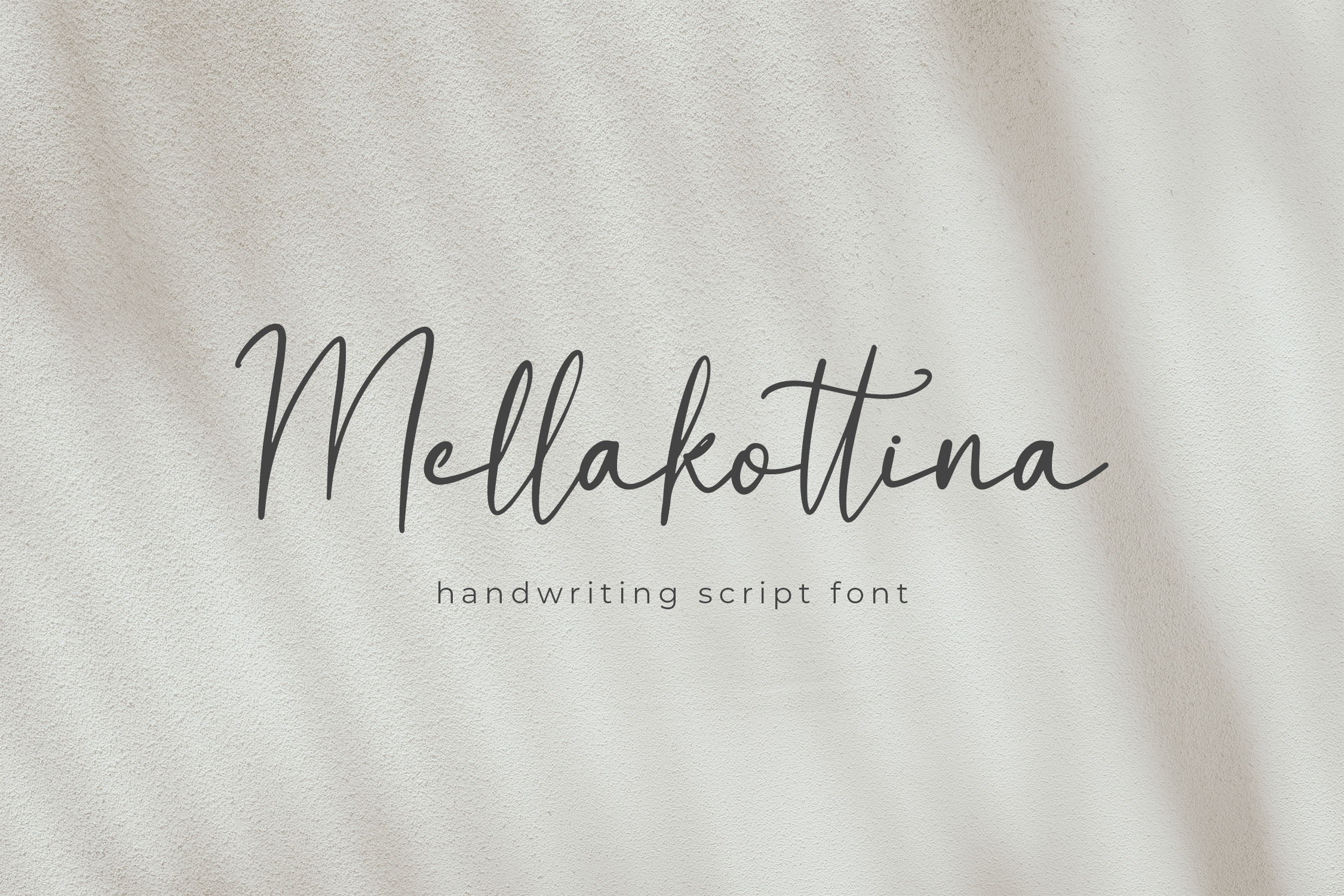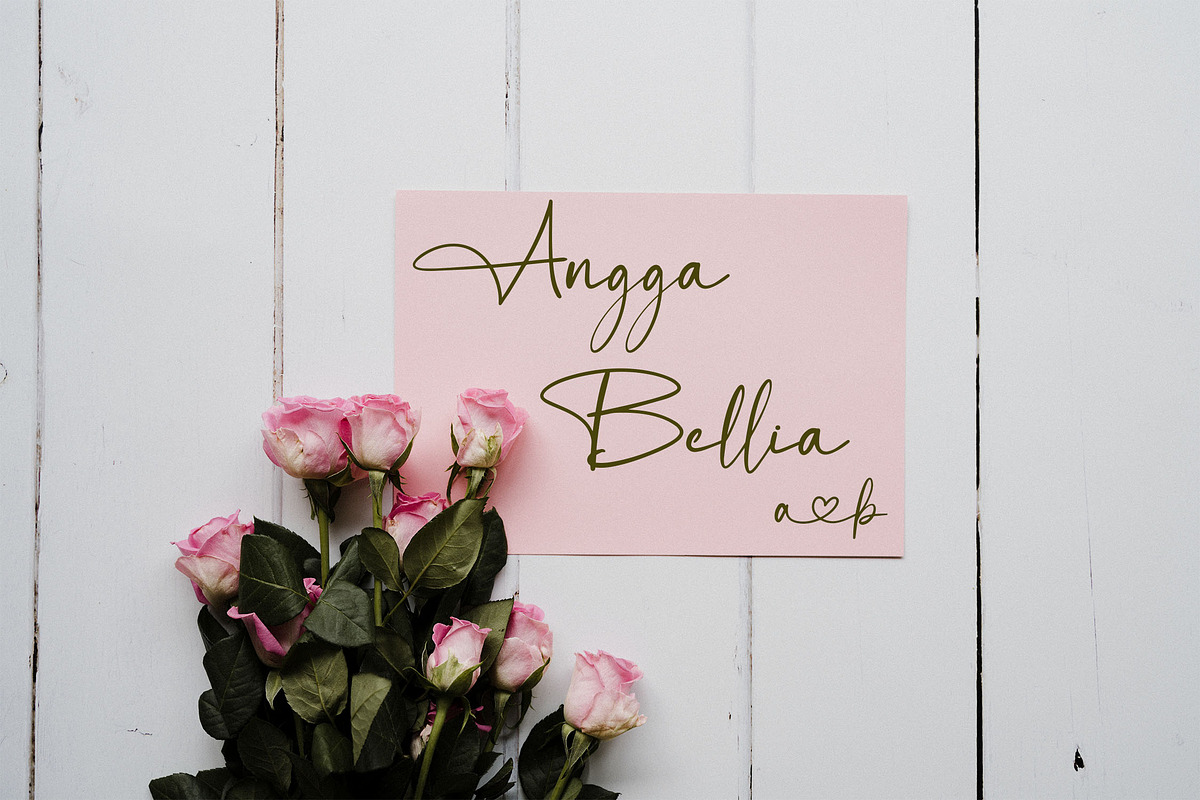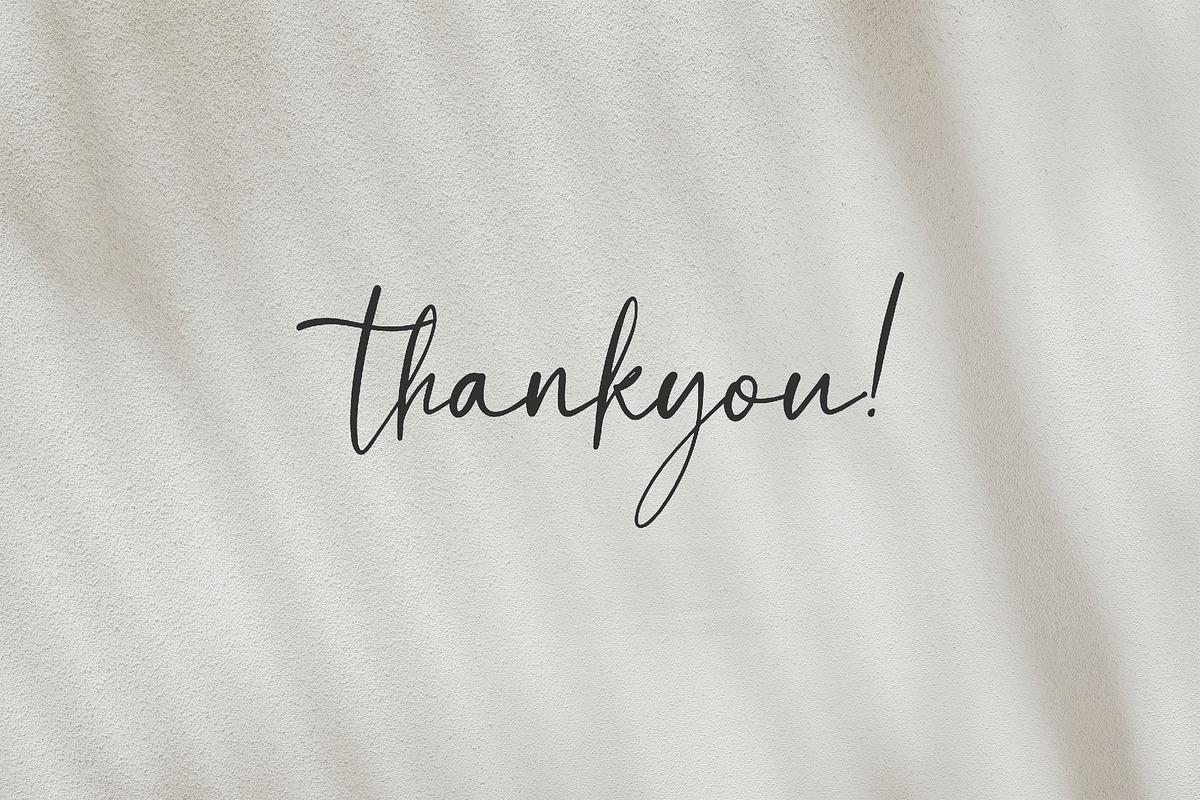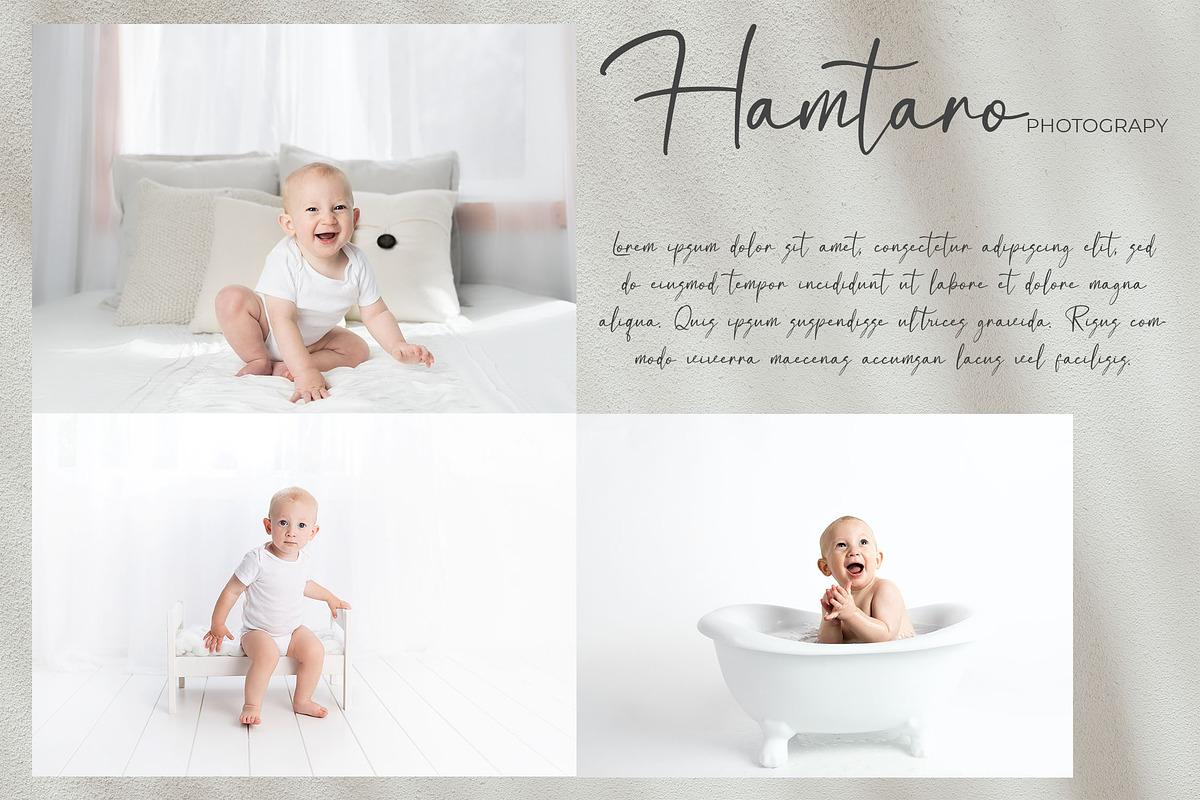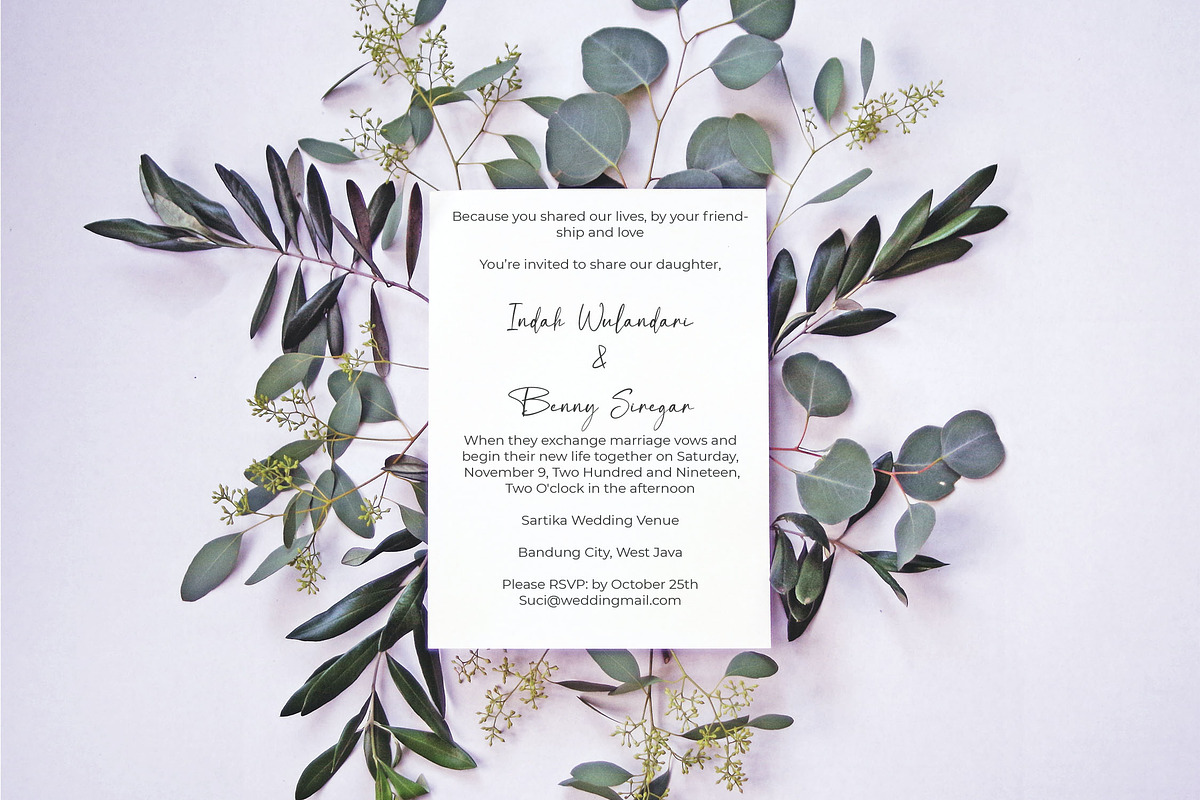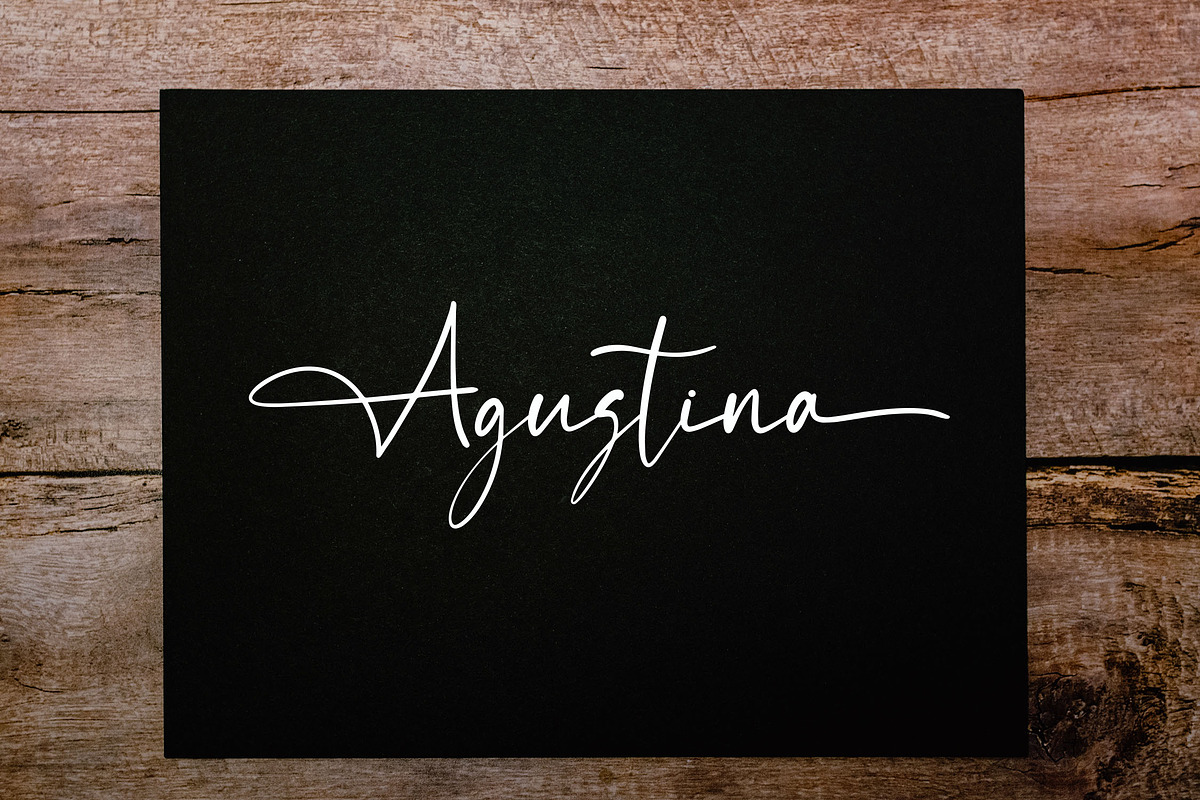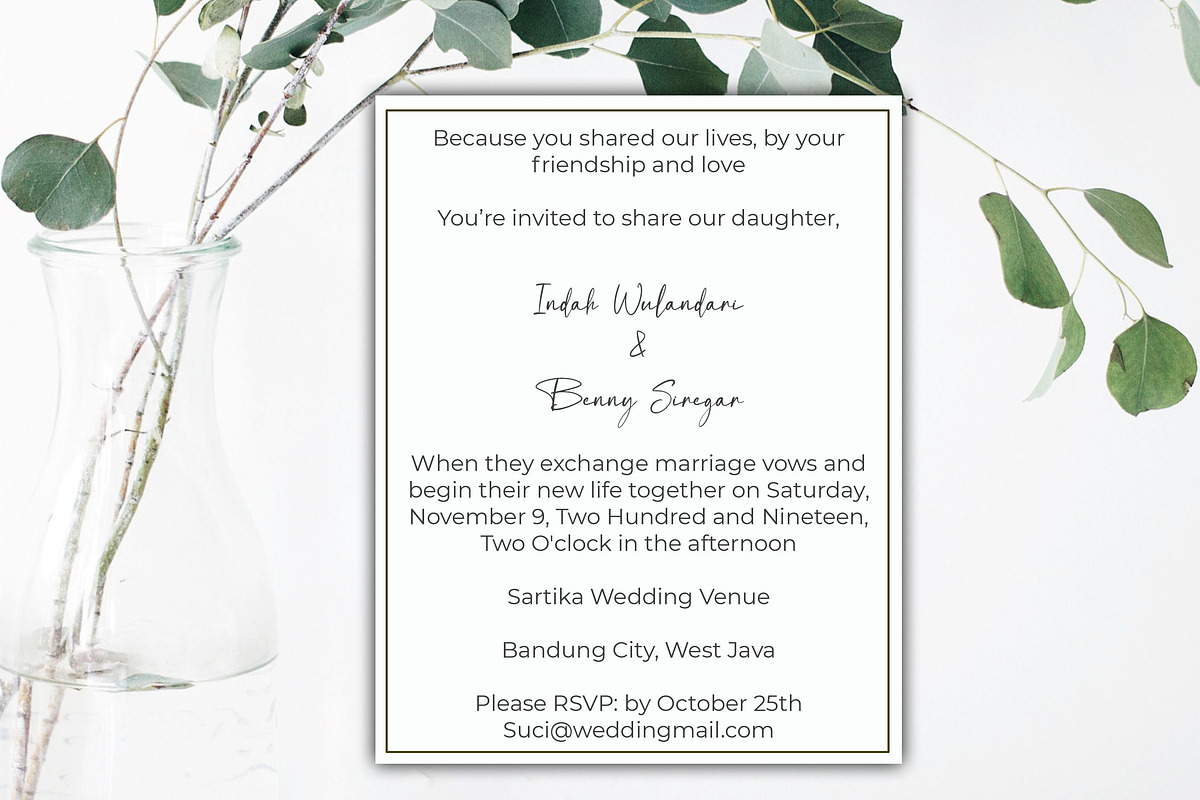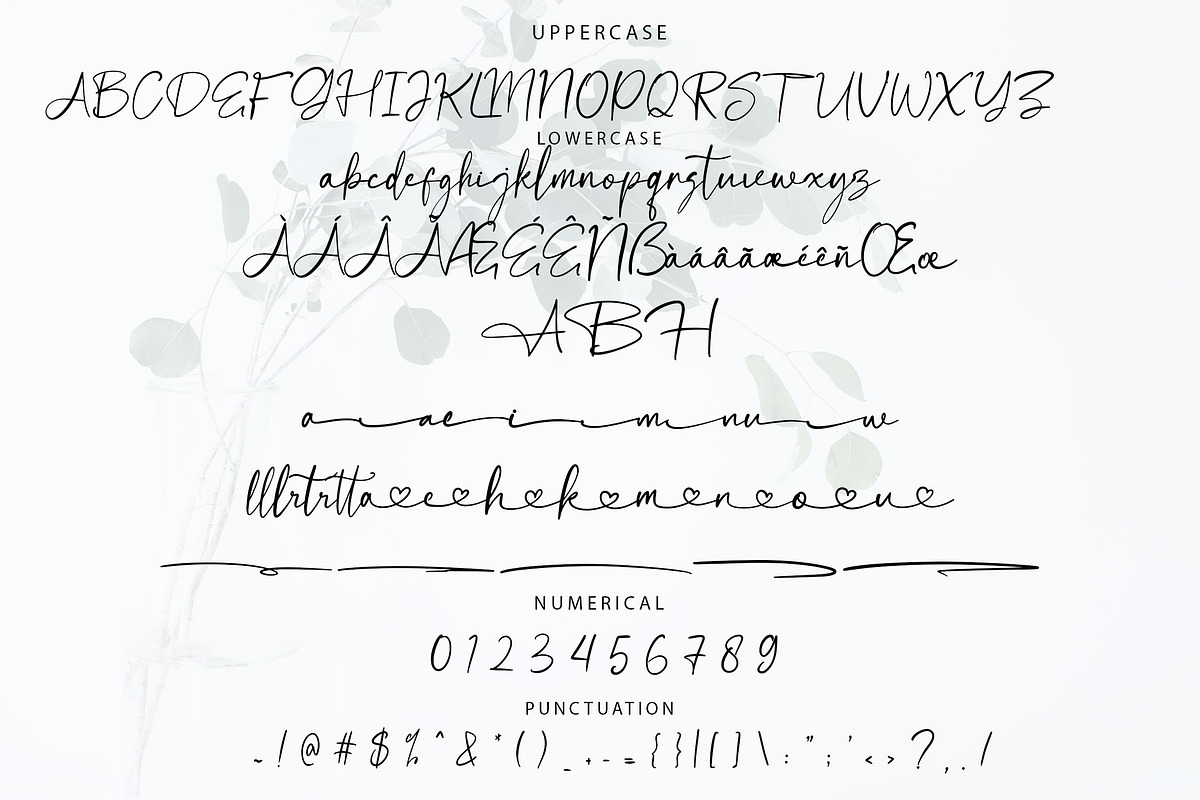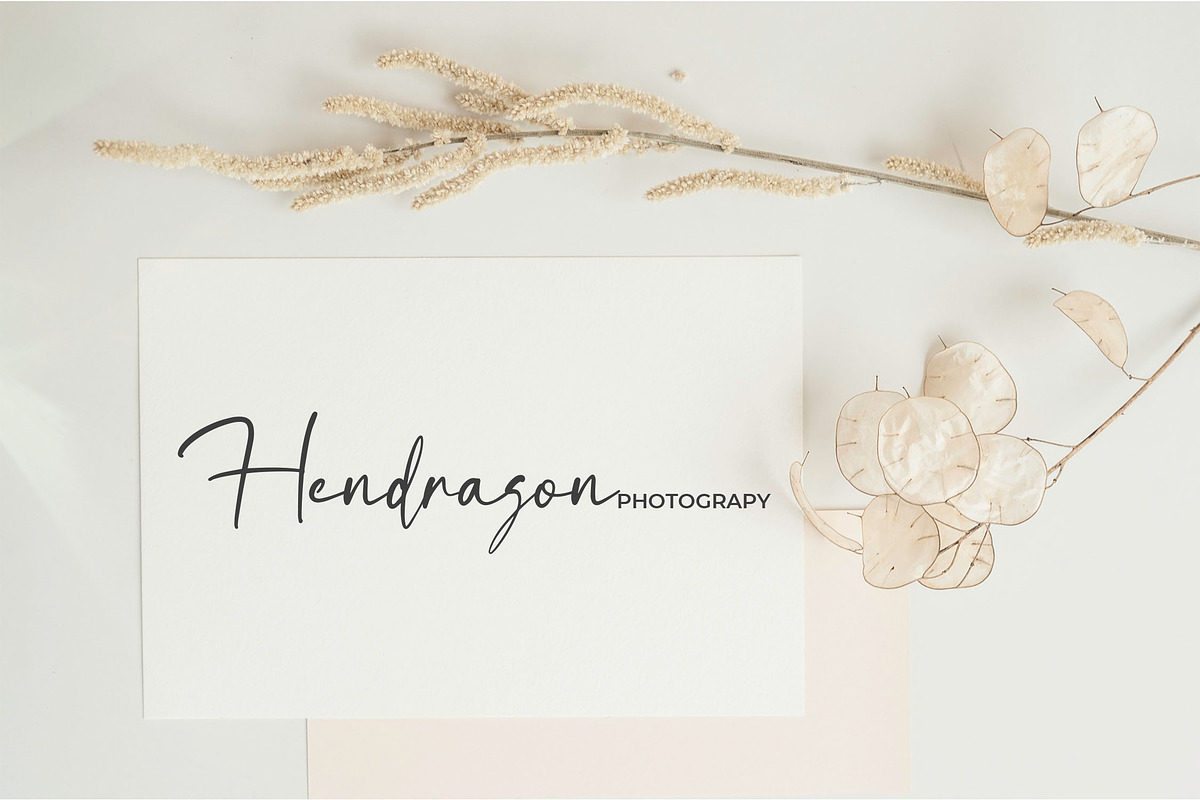
Mellakottina Handwriting Script Font
Mellakottina is a beautifully crafted script font with an elegant handwriting style. Designed with unique character shapes, this font brings a sophisticated and authentic feel to your creative projects. Perfect for enhancing the visual appeal of your designs, Mellakottina is versatile and can be applied to branding, invitations, social media graphics, and more. Its natural flow and attractive look will make any design stand out.
- Includes ligatures, stylistic alternates, and swashes
- Supports multiple languages for broader use